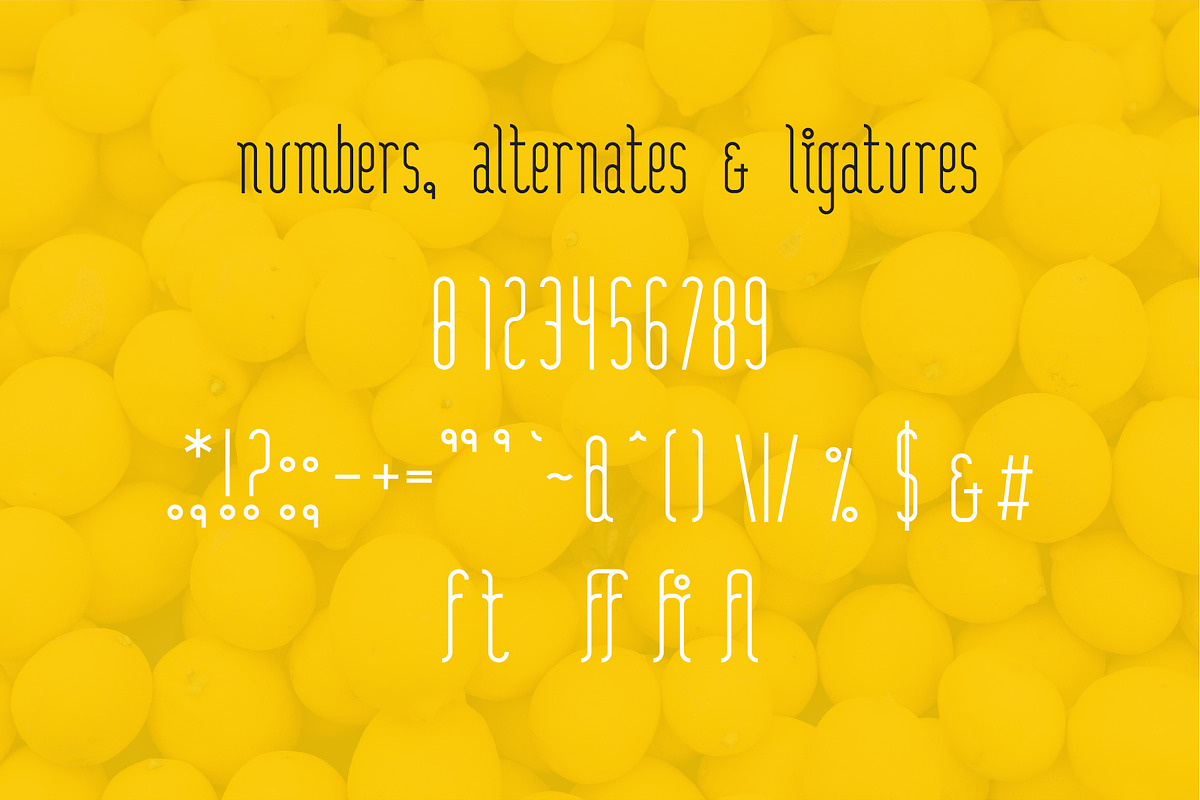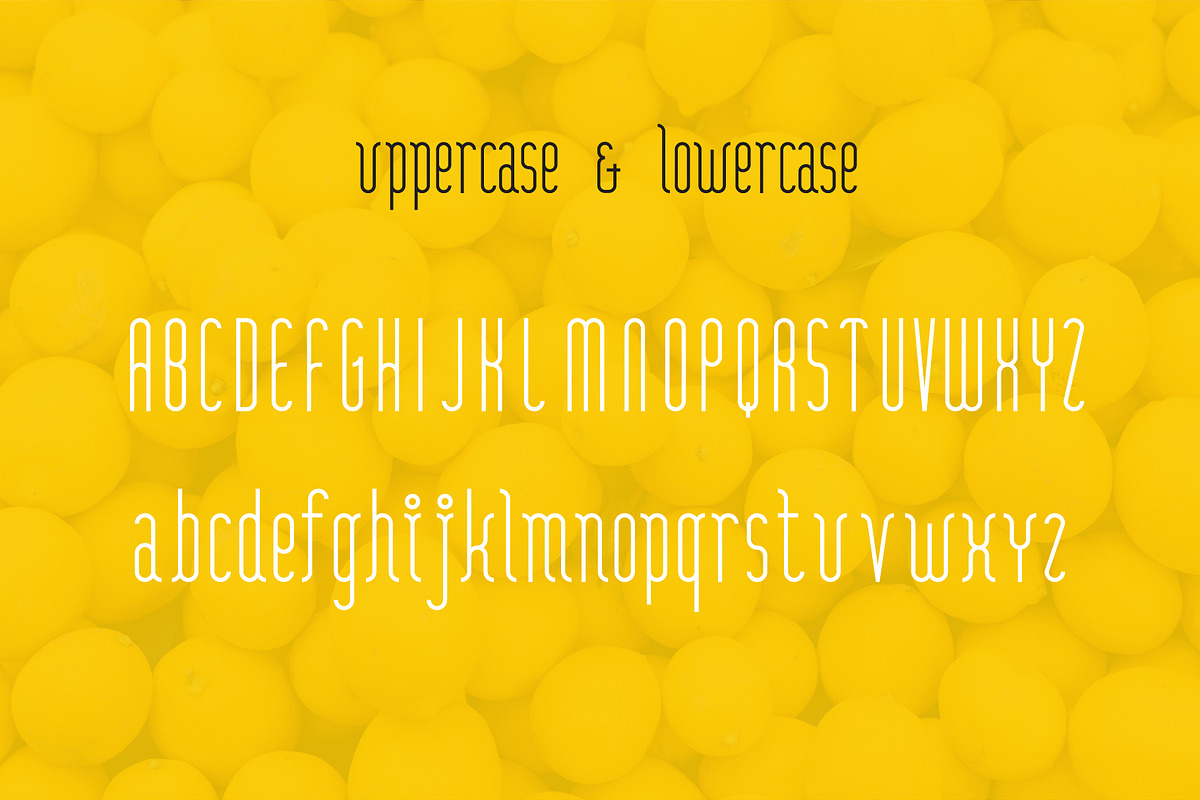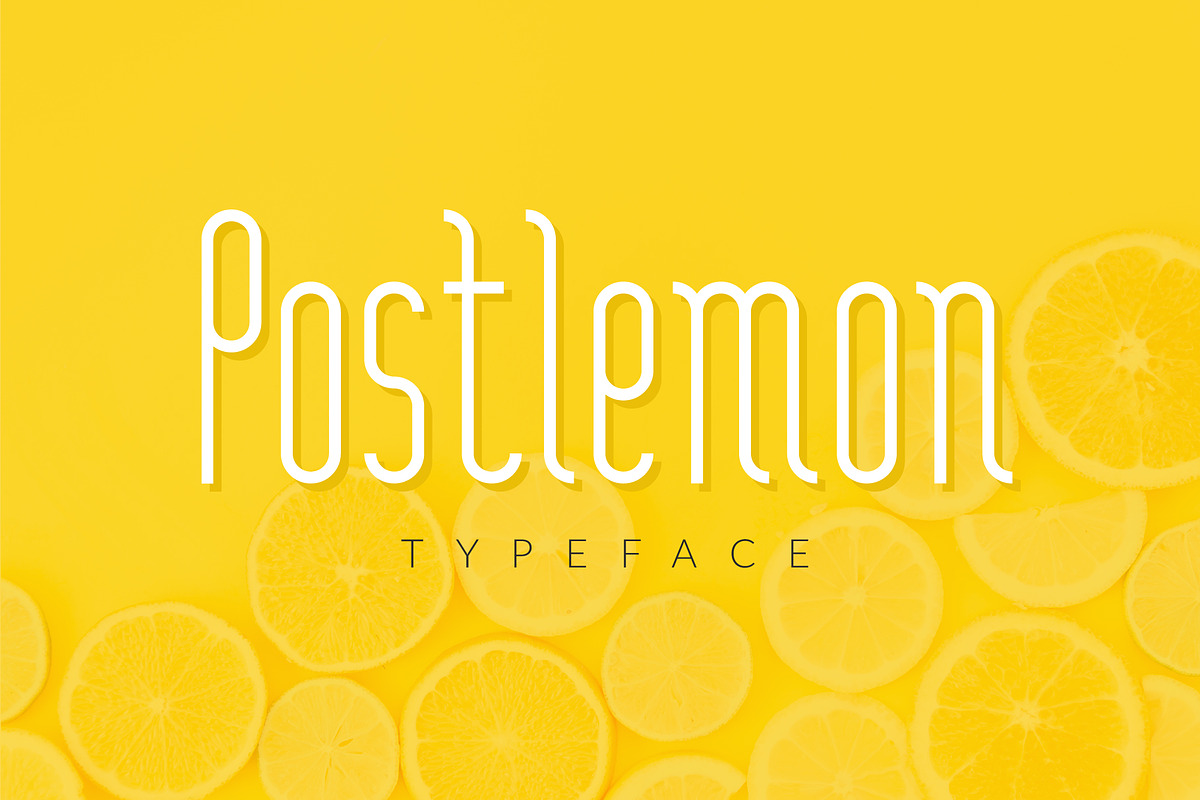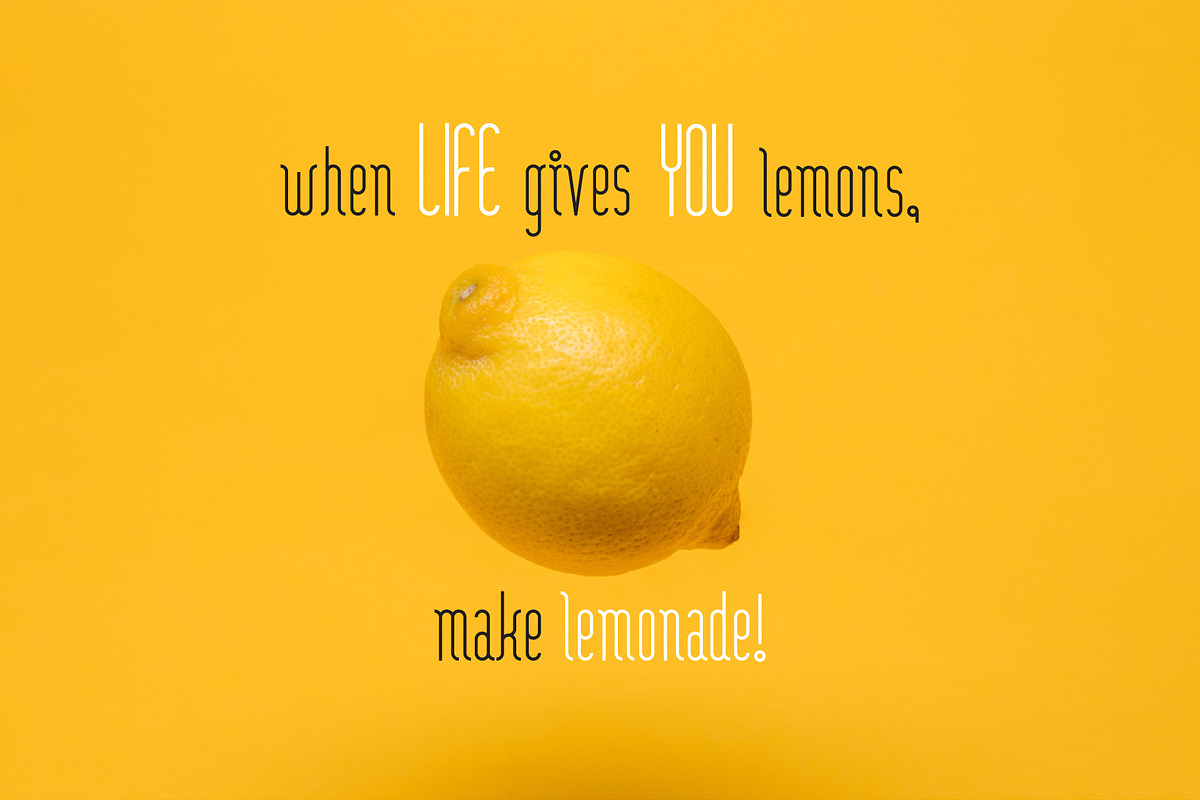
Postlemon Display Typeface
Postlemon is an open type vector monoline font with basic glyphs set, "f" and "t" alternates and "ff" "fi" "fl" ligatures
Postlemon Display Typeface by Magda fits naturally into Branding, posters, packaging, typography.